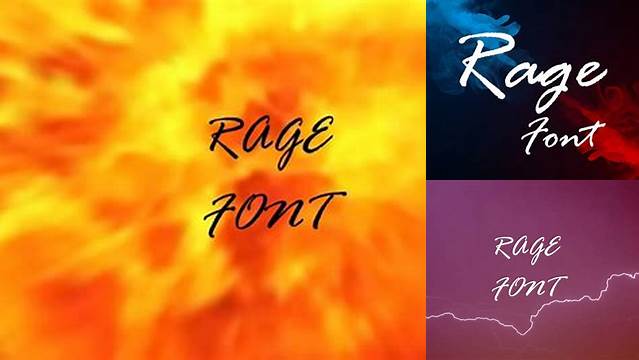
What is the Rage Font and Why Should You Care?
First things first, what exactly is the Rage font? Well, it's a distinctive typeface known for its bold and energetic style. It's perfect for making a statement, whether you're designing a poster, crafting a website header, or adding a touch of edge to your branding. The Rage font often features a striking, italicized appearance, which gives it a sense of movement and dynamism. It's the kind of font that immediately grabs attention and conveys a feeling of power and rebellion. It’s perfect for projects that need to stand out from the crowd. Its unique design makes it ideal for headlines, logos, and any design element where you want to make a strong visual impact.
With its bold, italicized form, Rage font ensures that your text pops. It’s not just about aesthetics; it’s about communicating your message effectively and powerfully. Let's make sure you can get it easily.
The Origins and Characteristics of the Rage Font
Let's take a quick look at the history of the Rage font, to understand where it came from and how it evolved. While the exact origin may vary, it's generally known for its bold, italic, and attention-grabbing nature. Created by a talented designer, the Rage font was crafted with a rebellious spirit, designed to capture the essence of energy and force. The font's unique characteristics, such as its sharp angles and dynamic flow, reflect the designer's desire to create something that demands attention. It is meant to capture the essence of rage, energy, and passion. Its bold strokes and italicized form give it a sense of movement and intensity. The carefully crafted design of Rage font makes it stand out from other fonts.
The design elements are important when you want to make a big impression. From logos to headings, it's a versatile choice. This font's history shows the evolution of design trends. Today, Rage font continues to inspire designers. It is still a great choice for anyone looking to add a strong statement to their designs. The designer's vision is about its impact on graphic design.